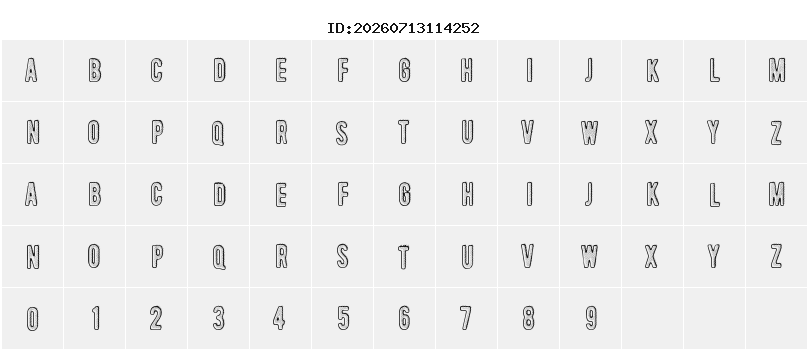
• Font Name: Radar Echoes, Unclear Atmospher
• Full Font Name: Radar Echoes, Unclear Atmospher
• Version: Version 1.00 January 24, 2015, initial release
• Designer: junkohanhero
About Radar Echoes, Unclear Atmospher.ttf
Radar Echoes, Unclear Atmospher.ttf is a modern, elegant sans-serif font designed for ultimate readability and visual harmony. Perfect for branding, headlines, web design, and print materials.